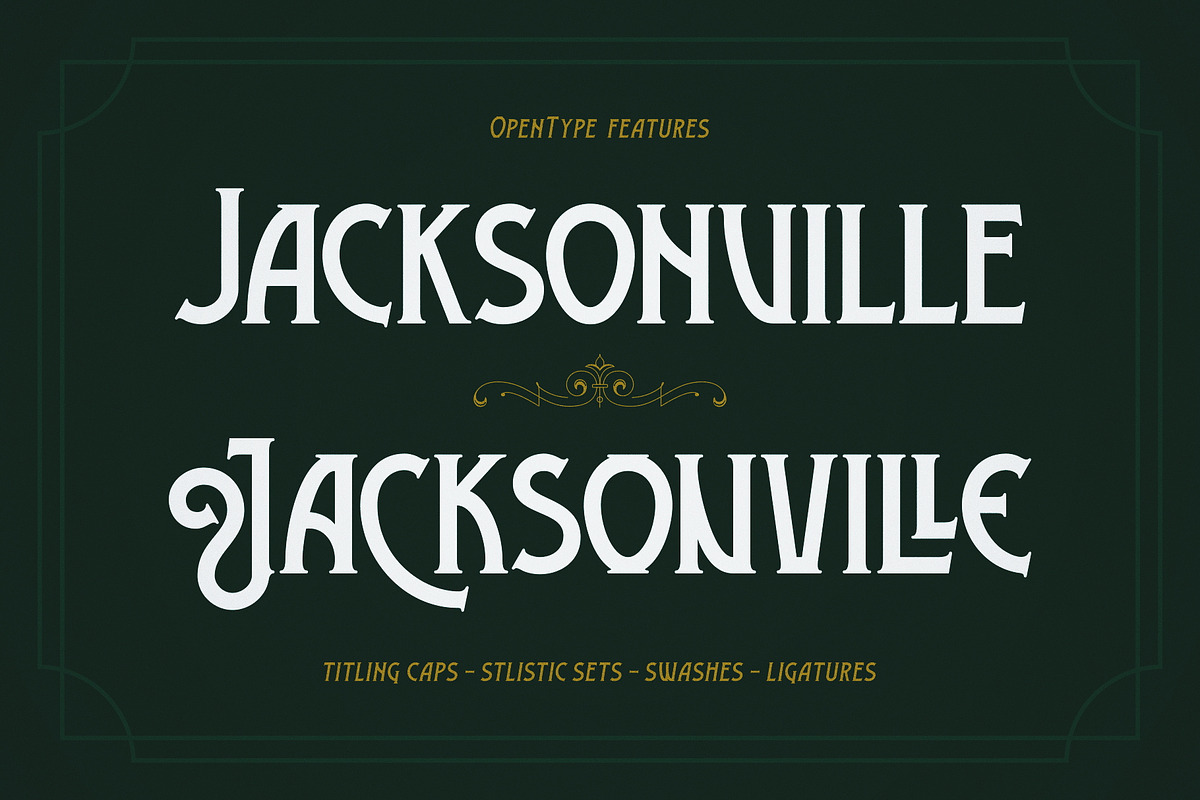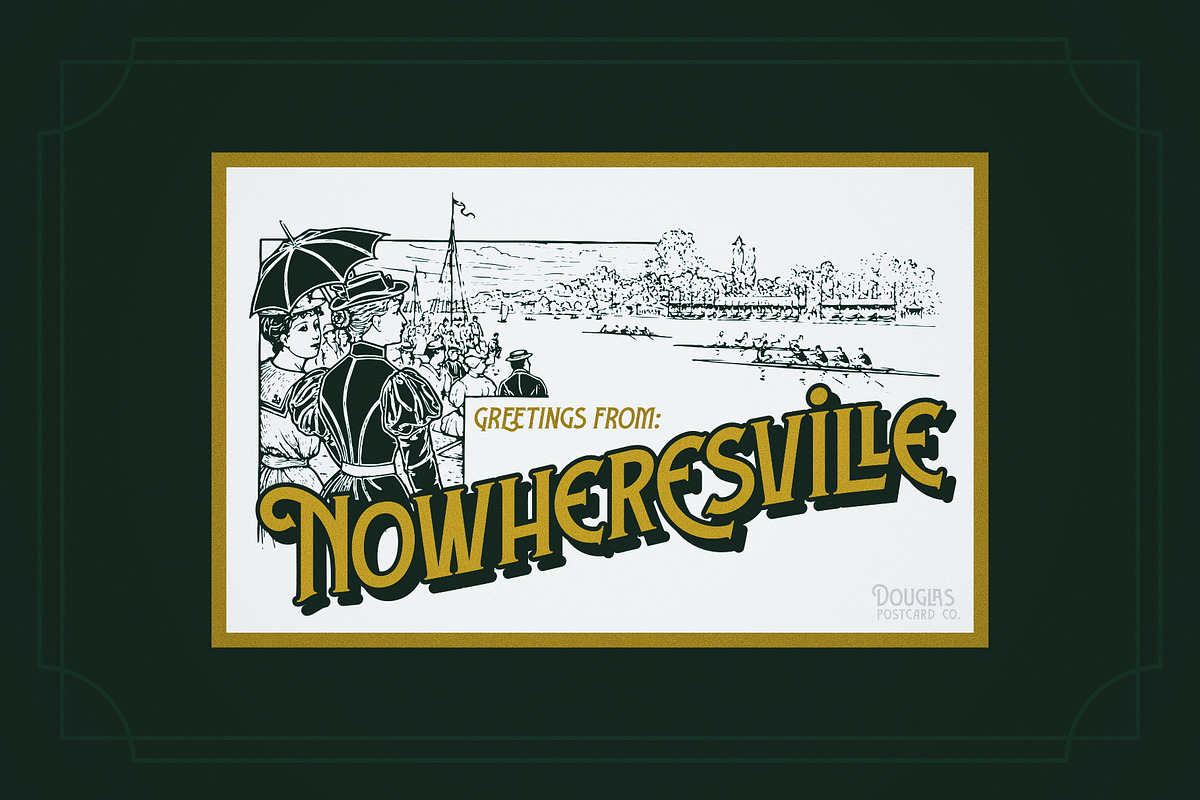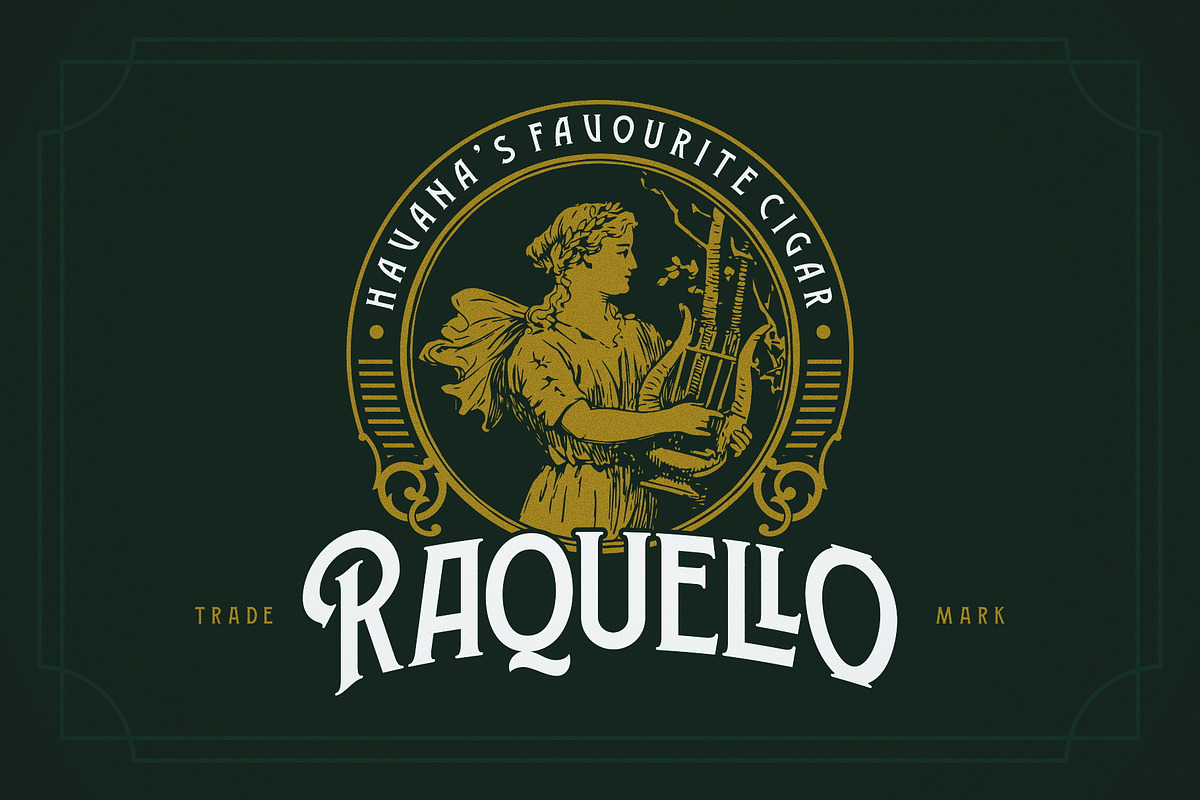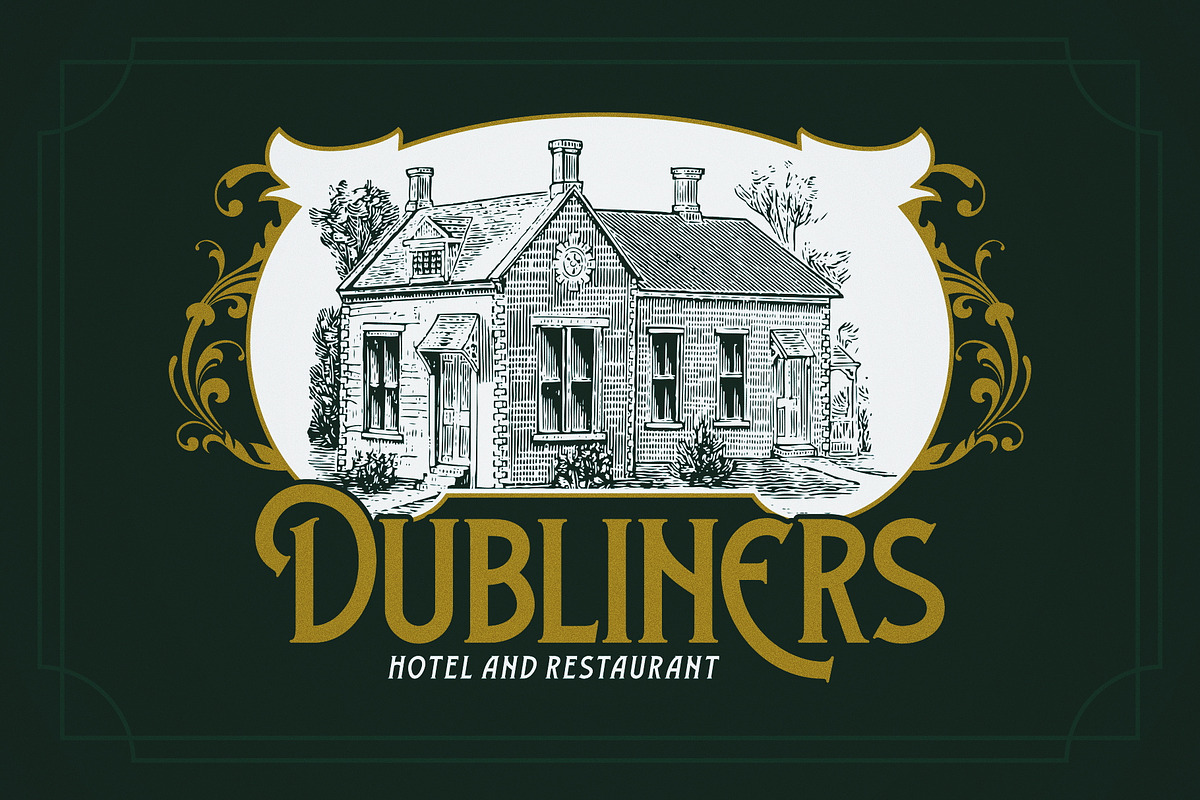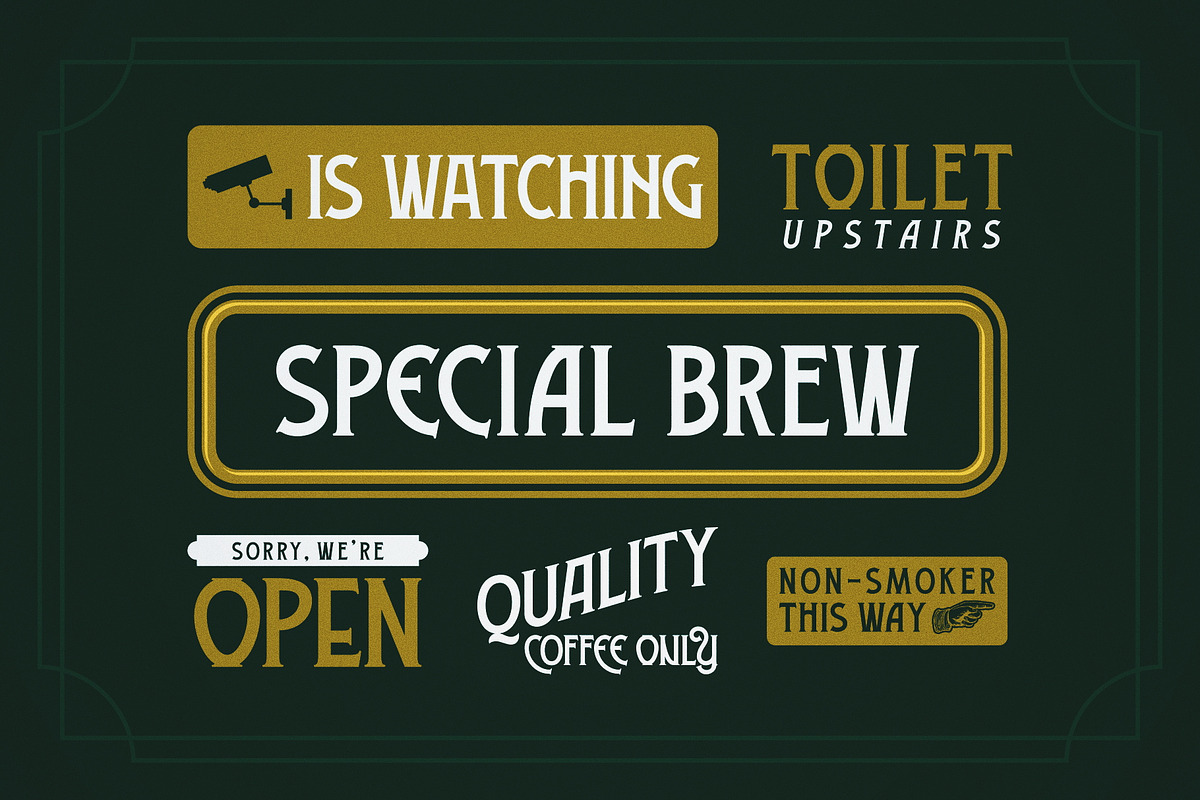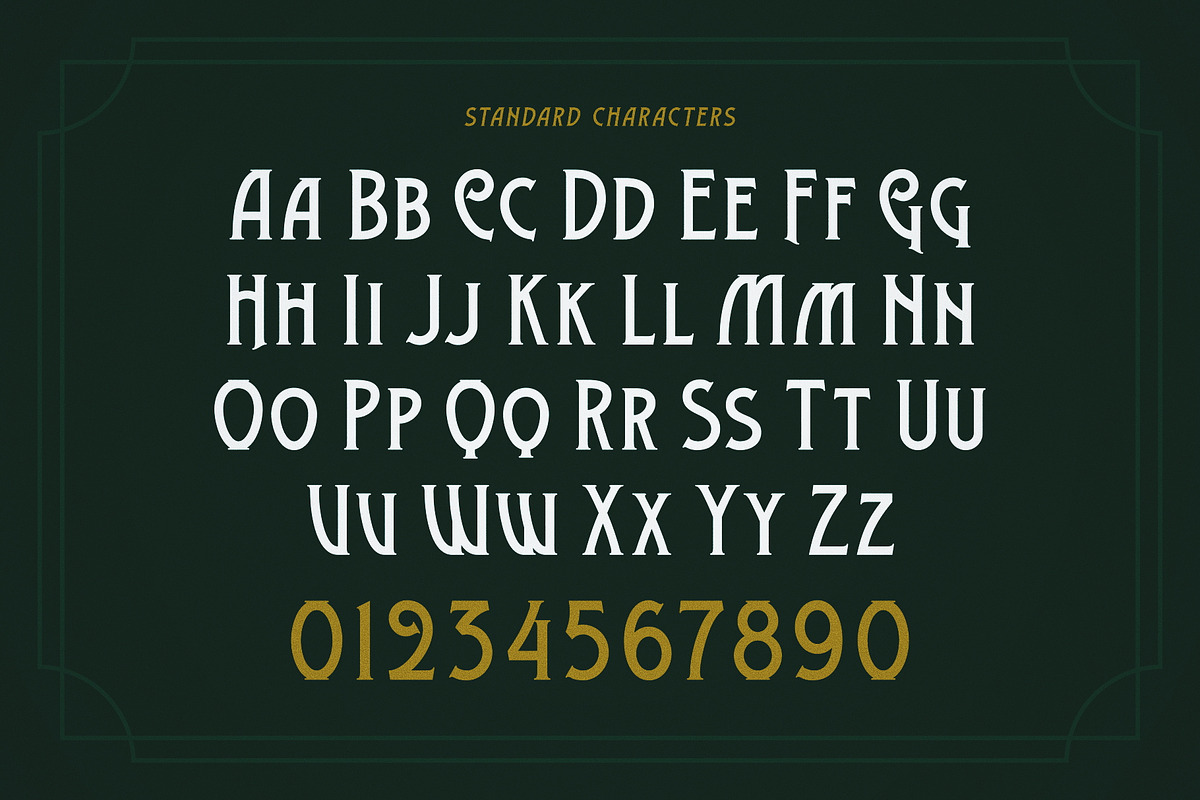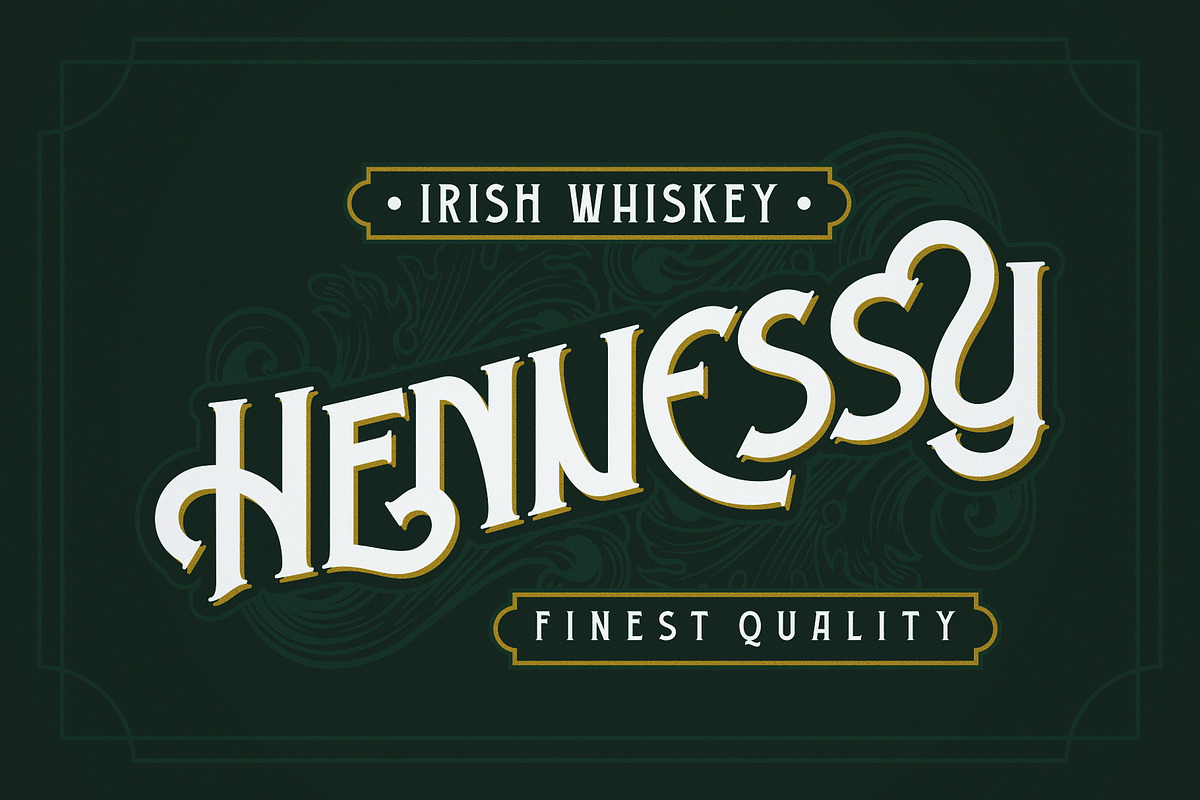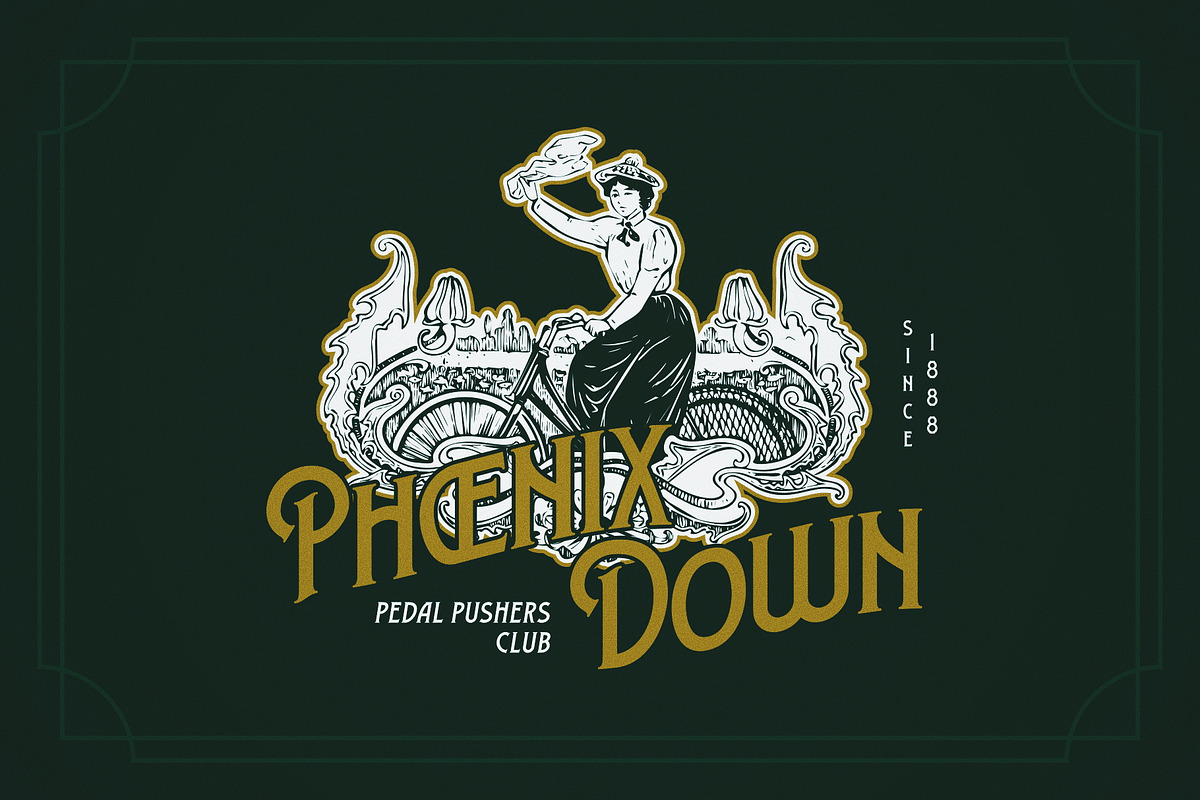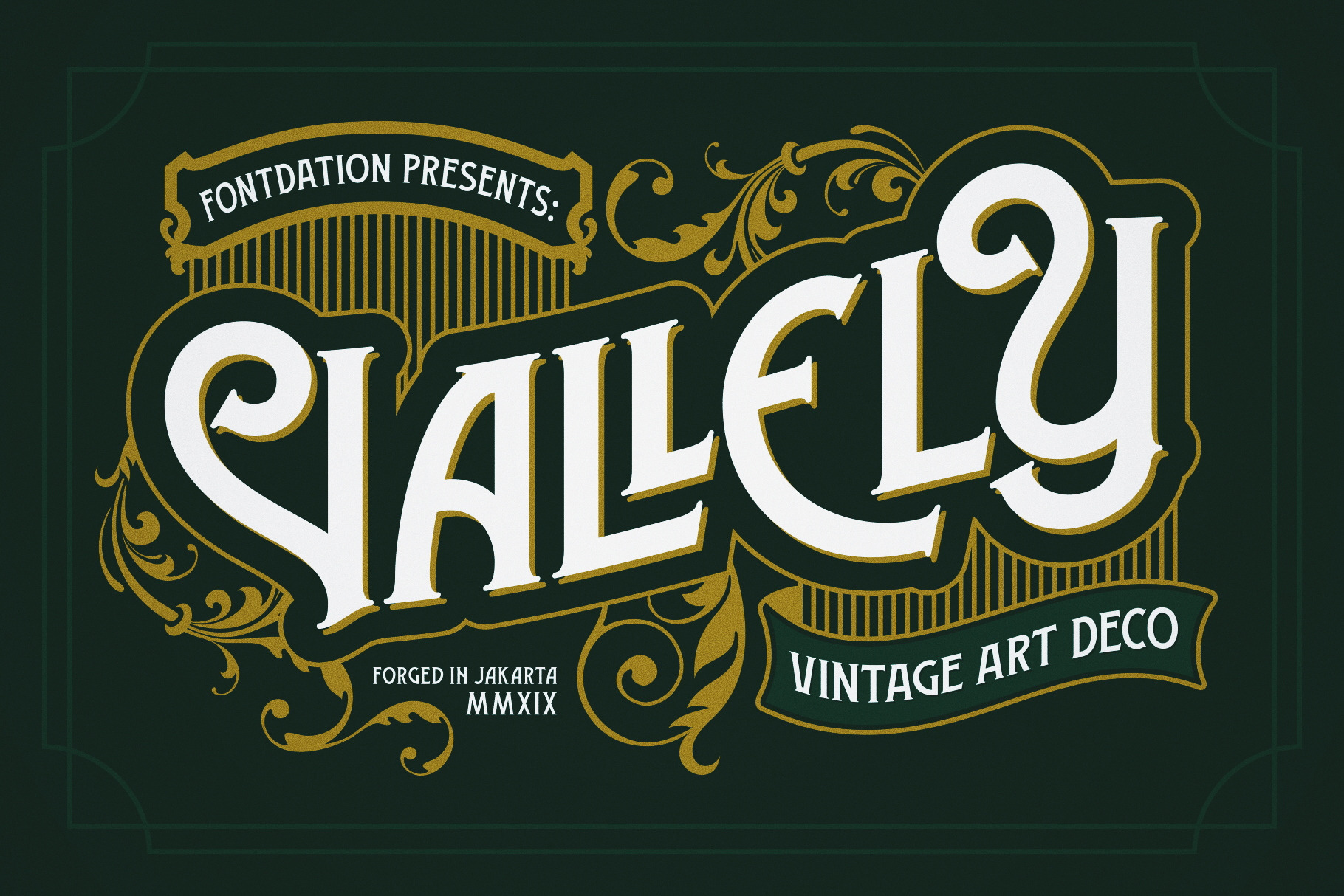
Vallely | Vintage Font
Introducing our new font; Vallely, a classic art-deco-ish serif that are inspired by the old typography/letterings used in packaging labels and advertisements. This font is loaded with 300+ glyphs, packed with lots of alternate characters, gives you various letter combinations to play with. If you're a fan of classic and art-deco ish typography, make sure you add this font to your design toolbox.
- Standard characters, numerals, and punctuations (OpenType Standard encoding),
- OpenType features such as alternate characters, stylistic sets,swashes, ligatures, etc,
- Two styles: Regular, and Italic,